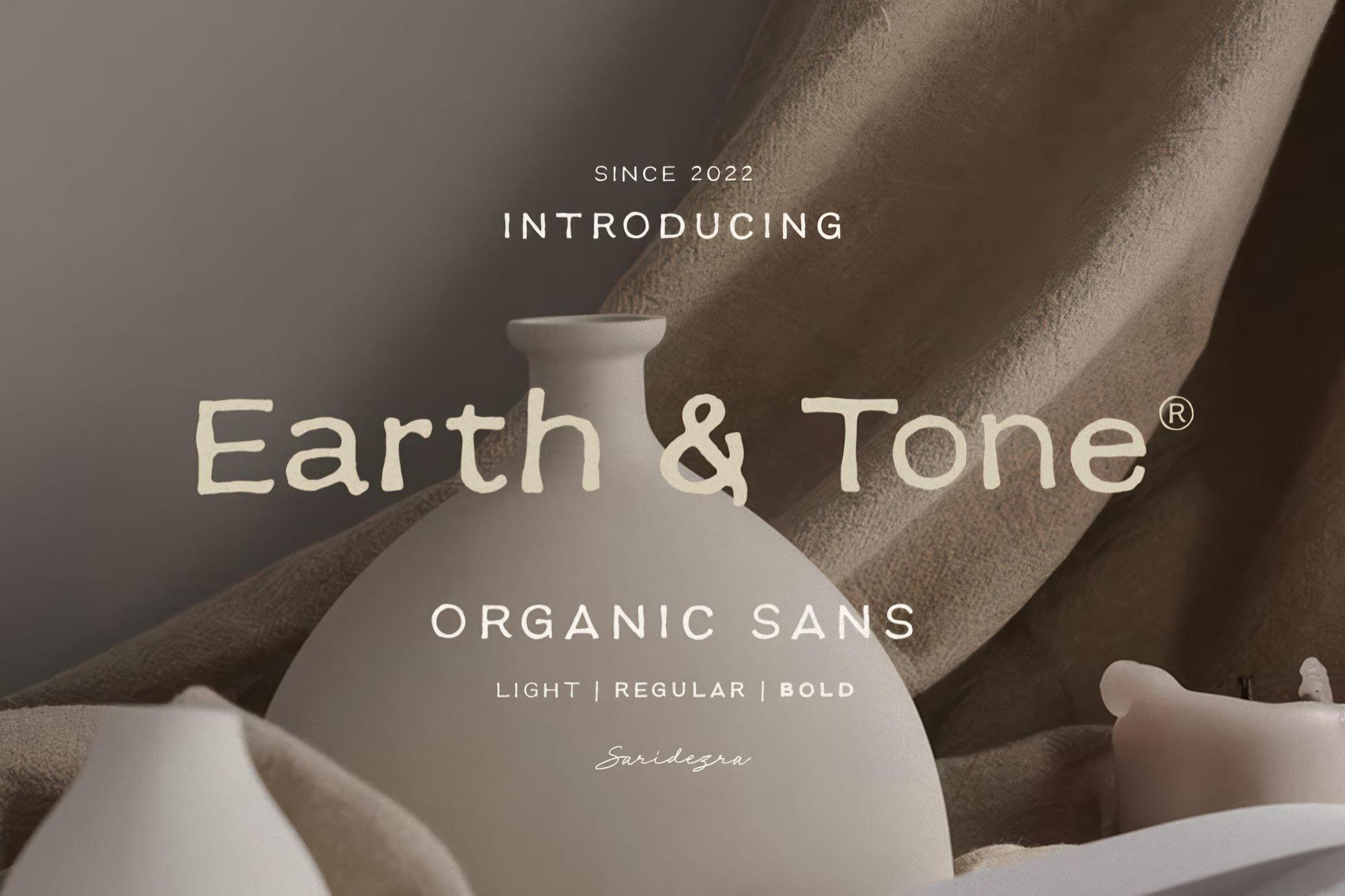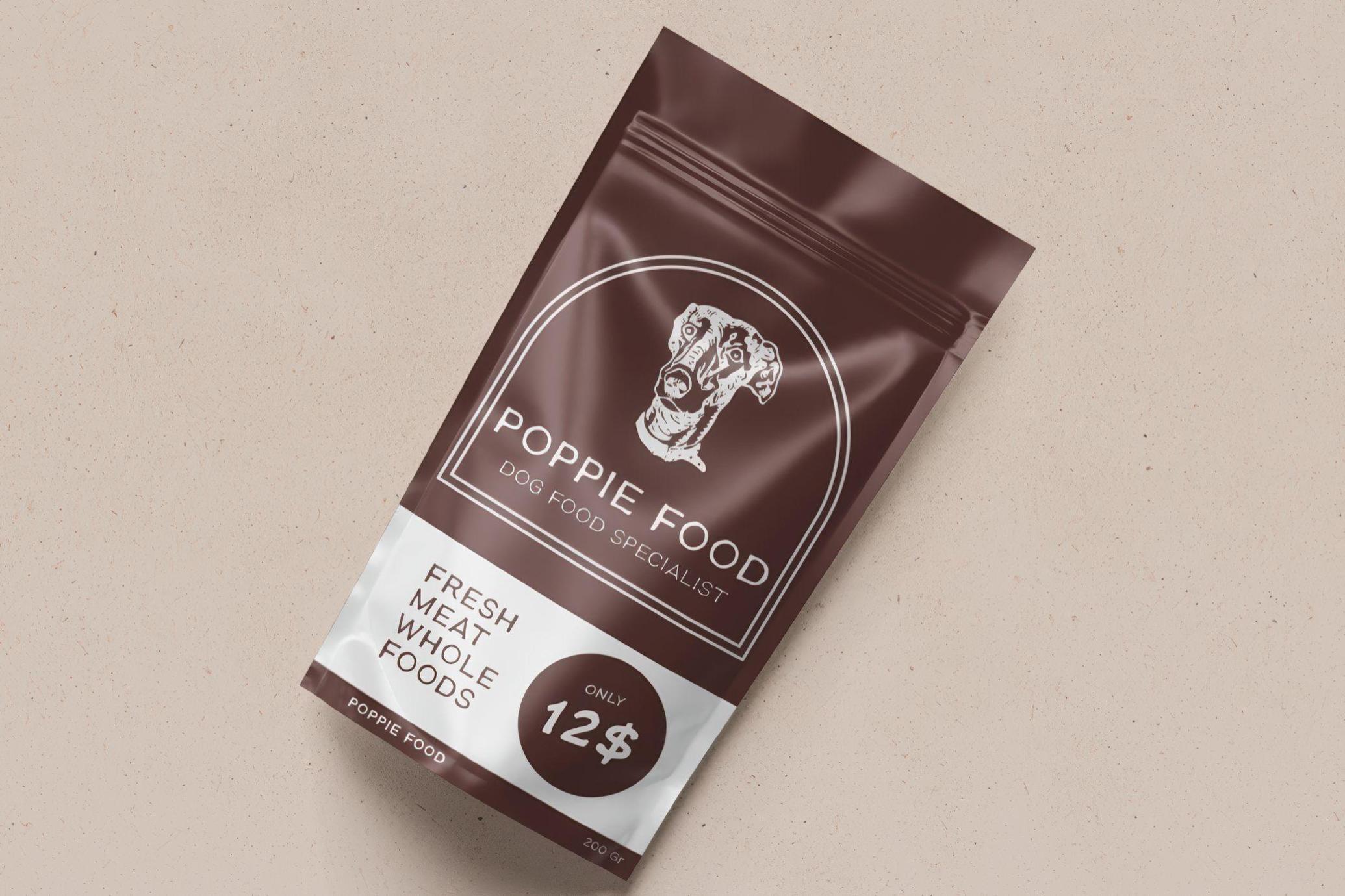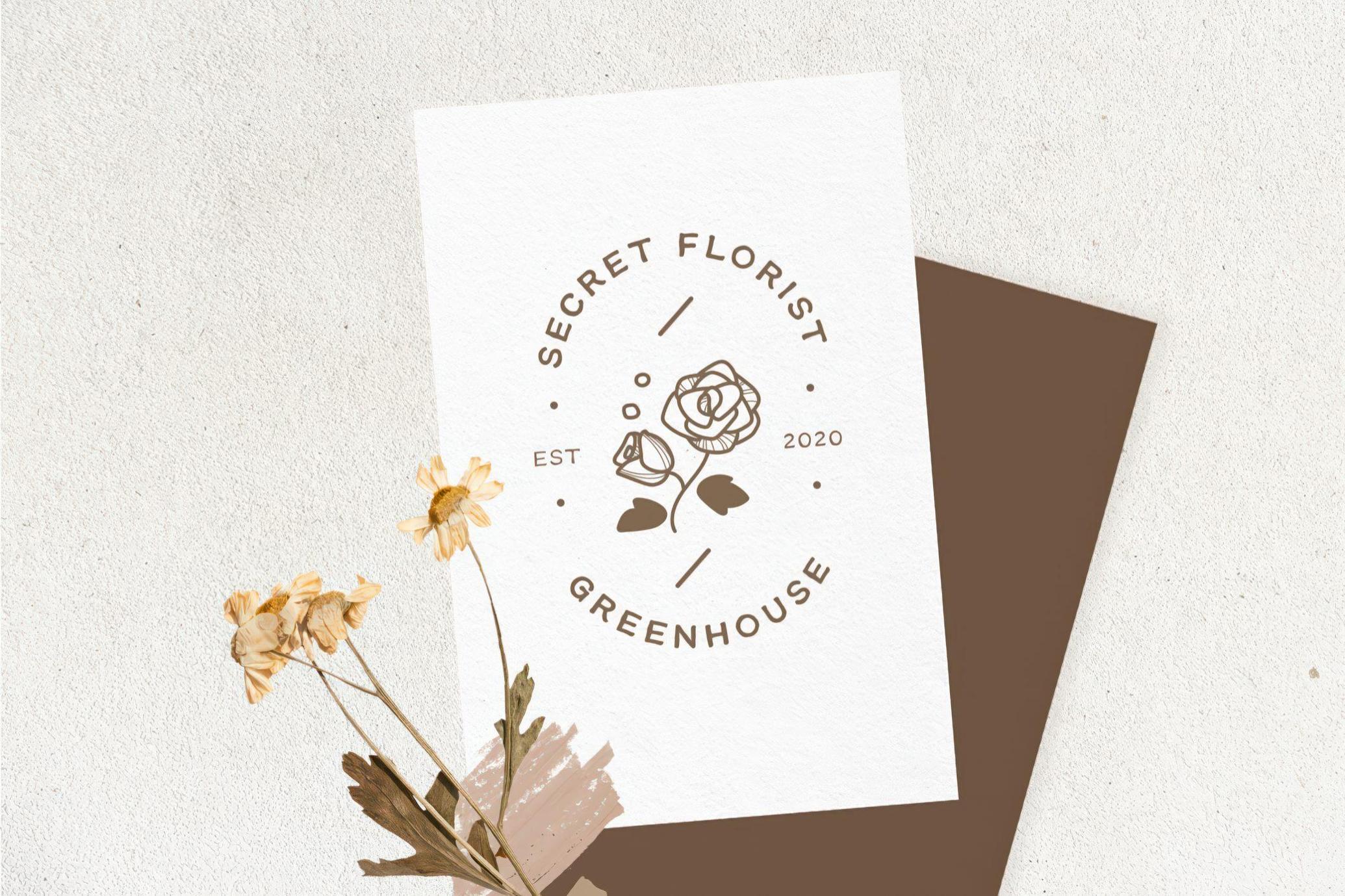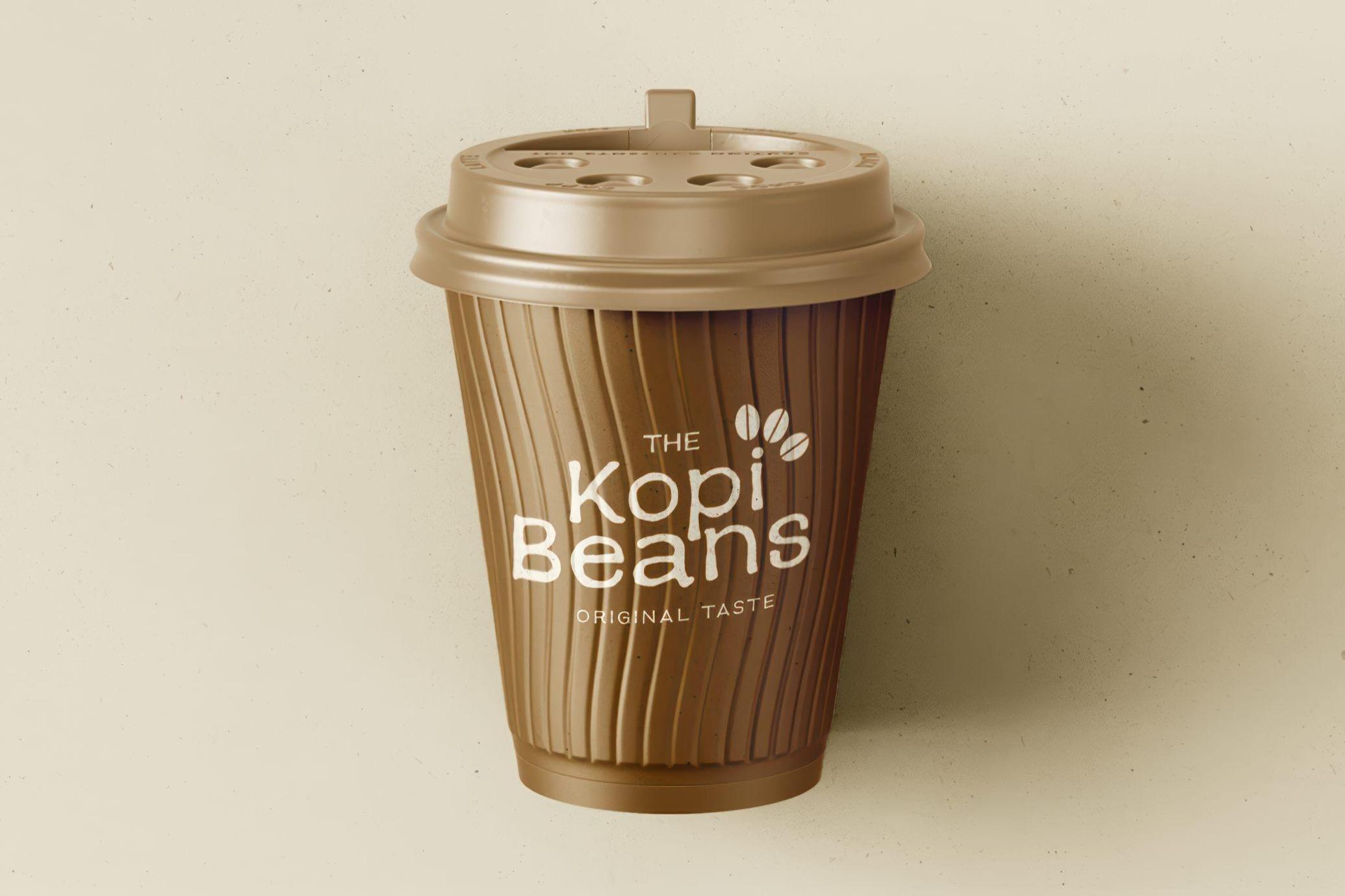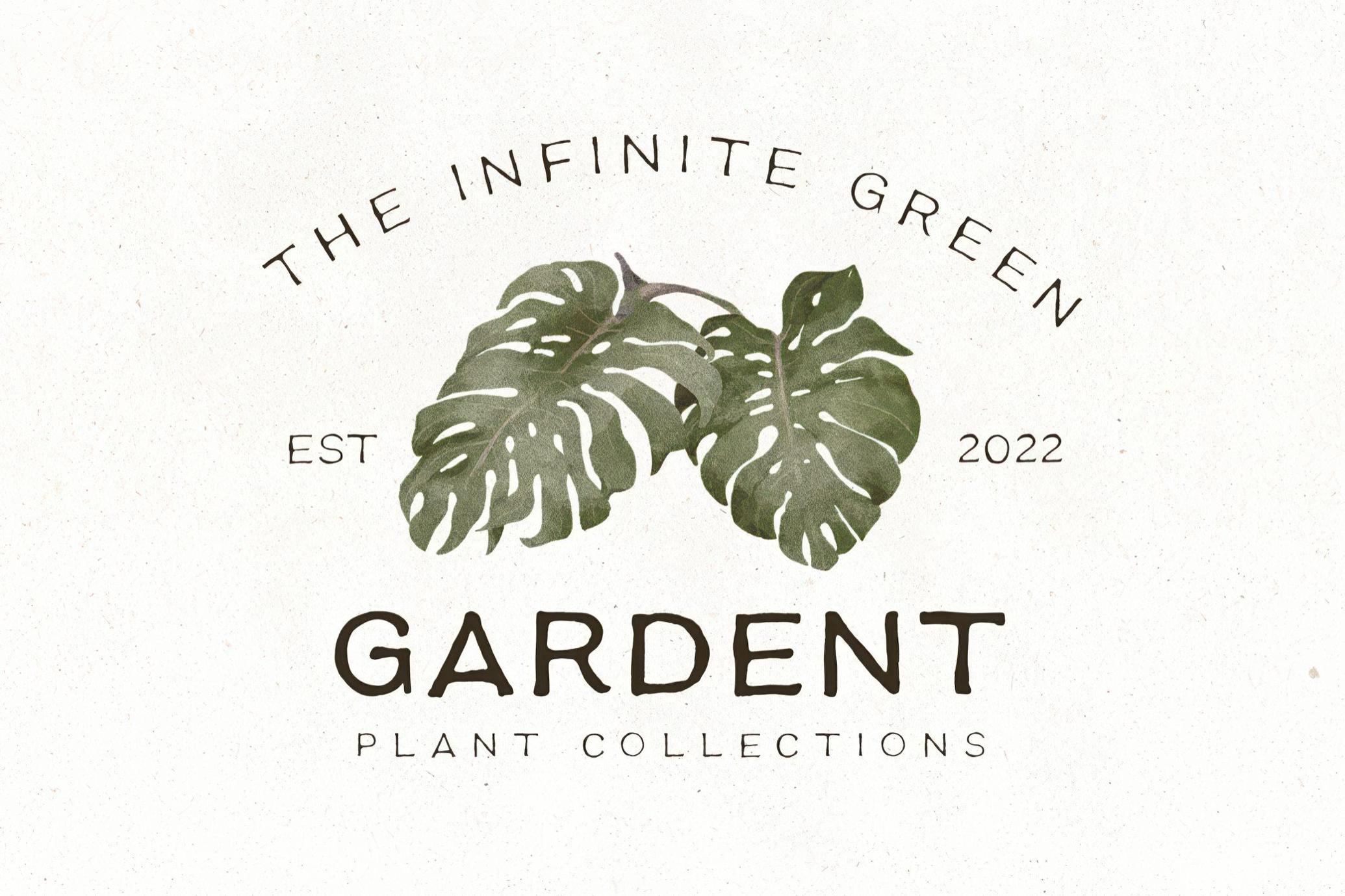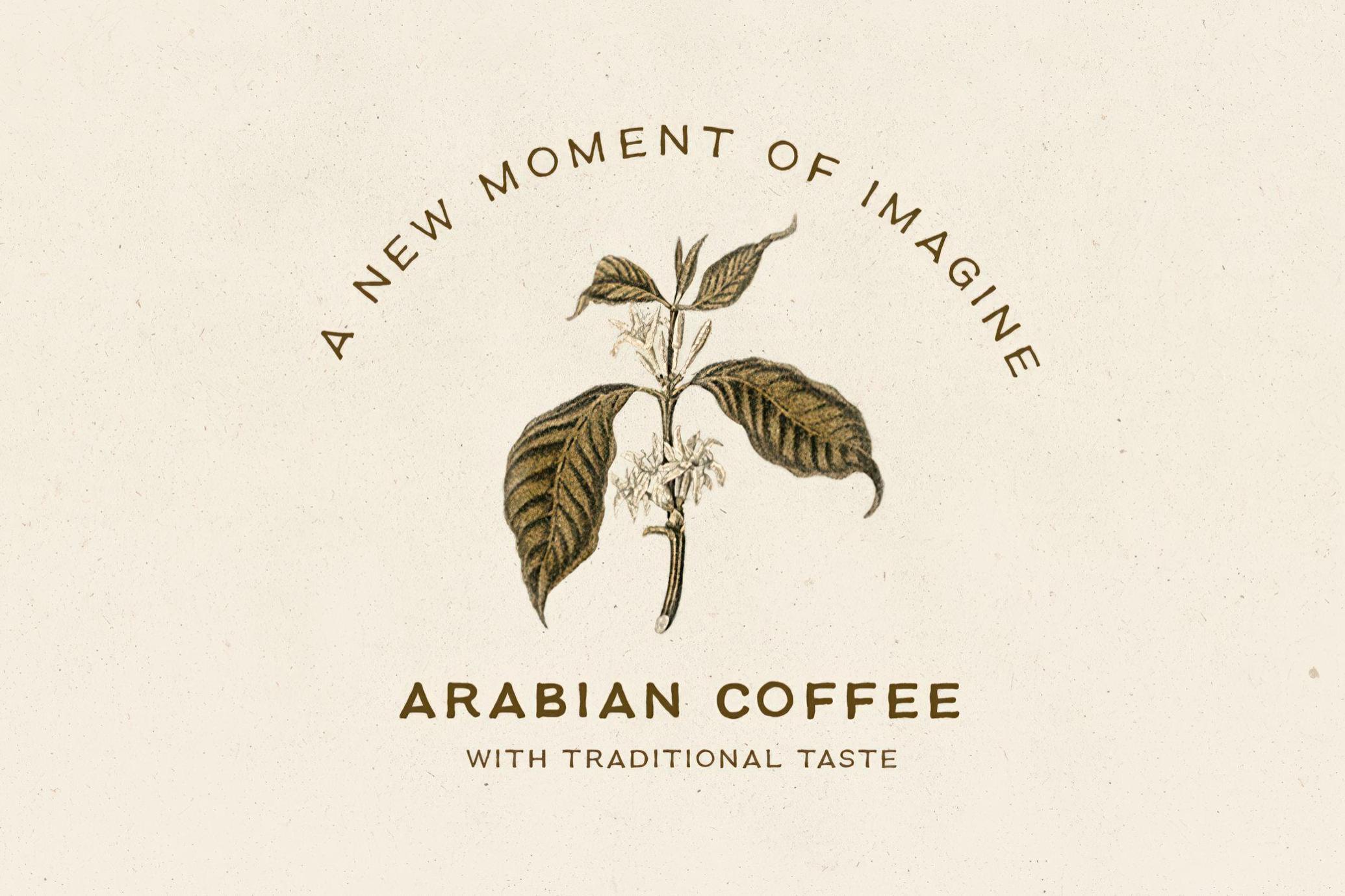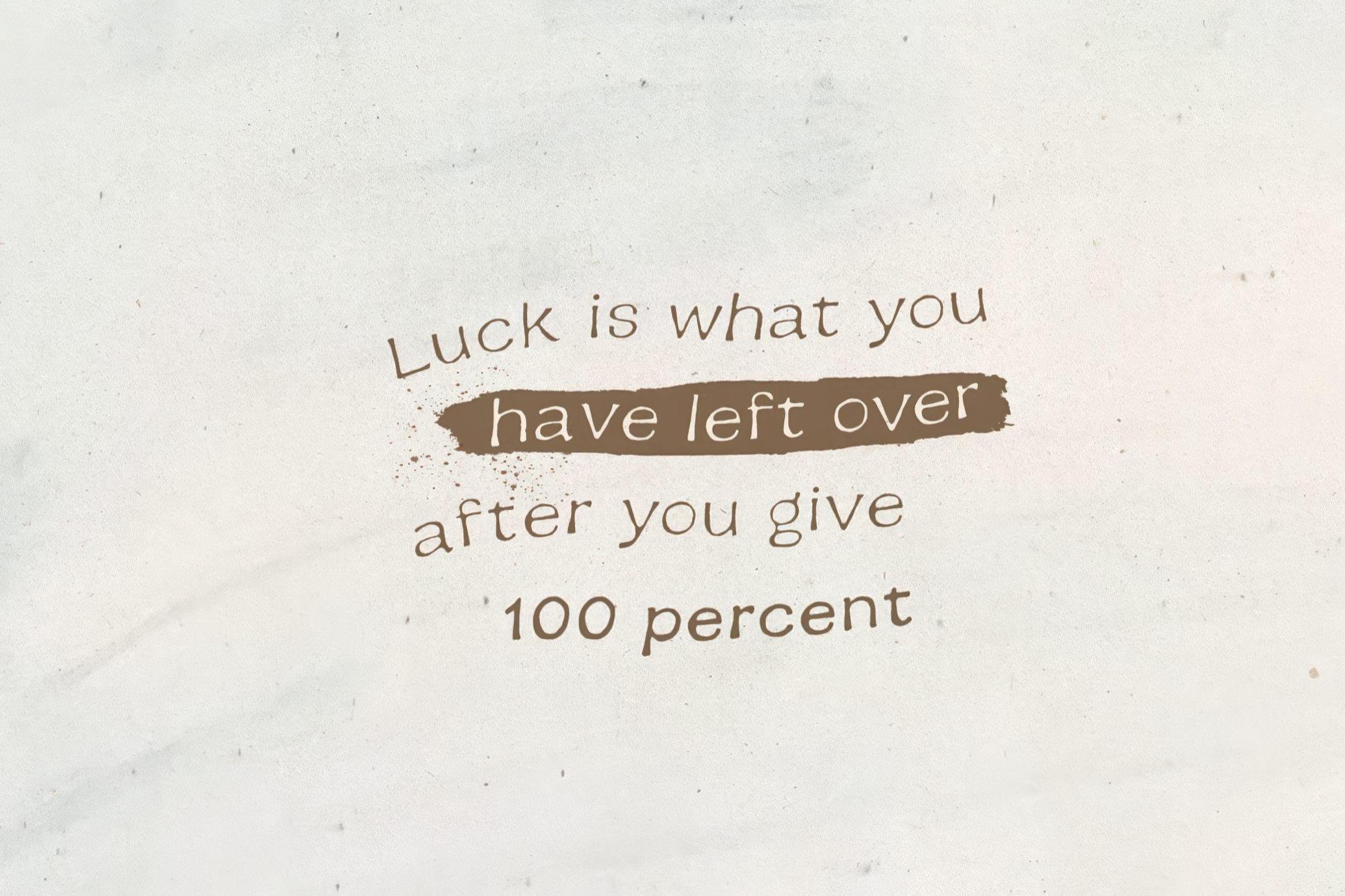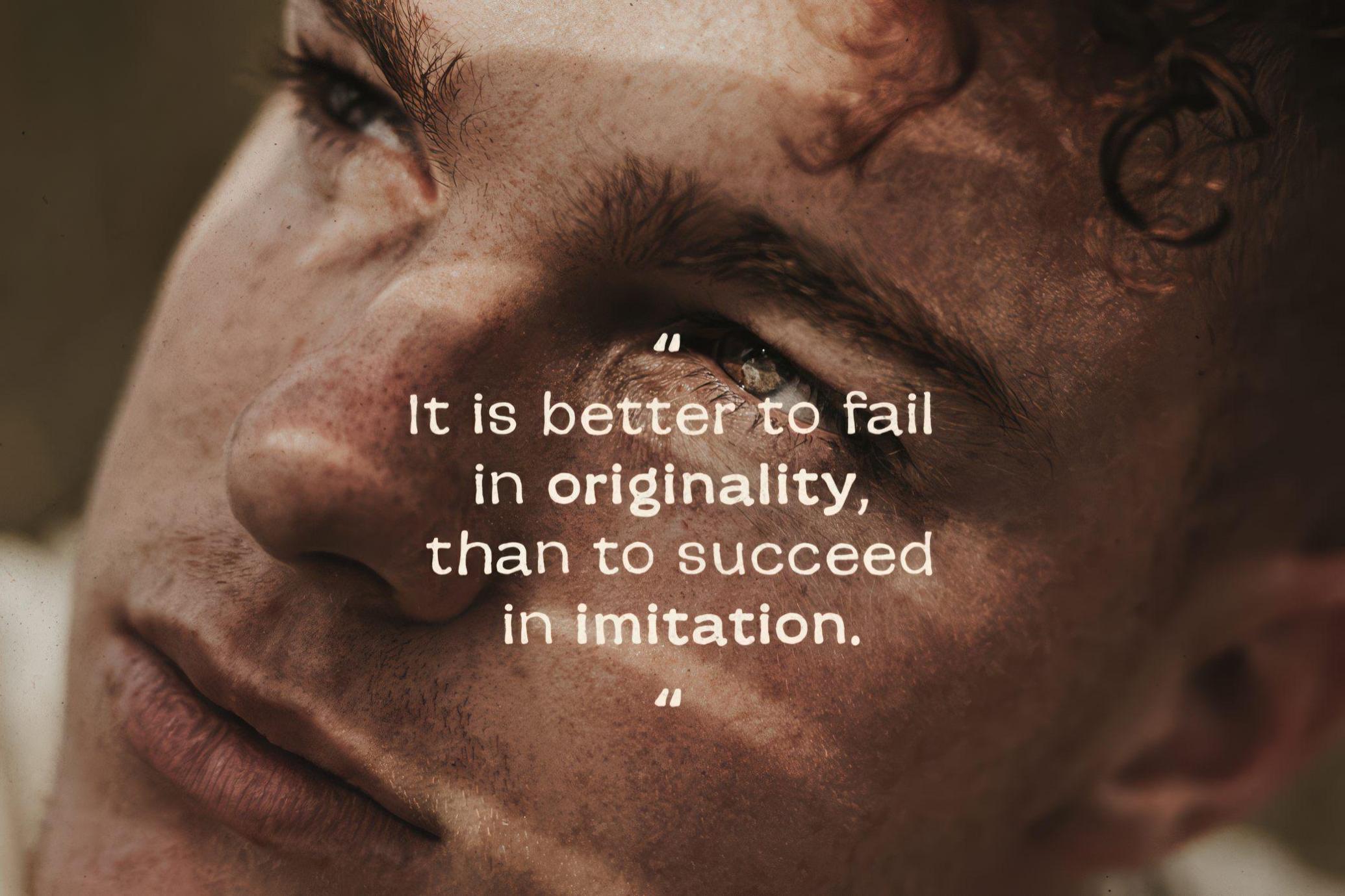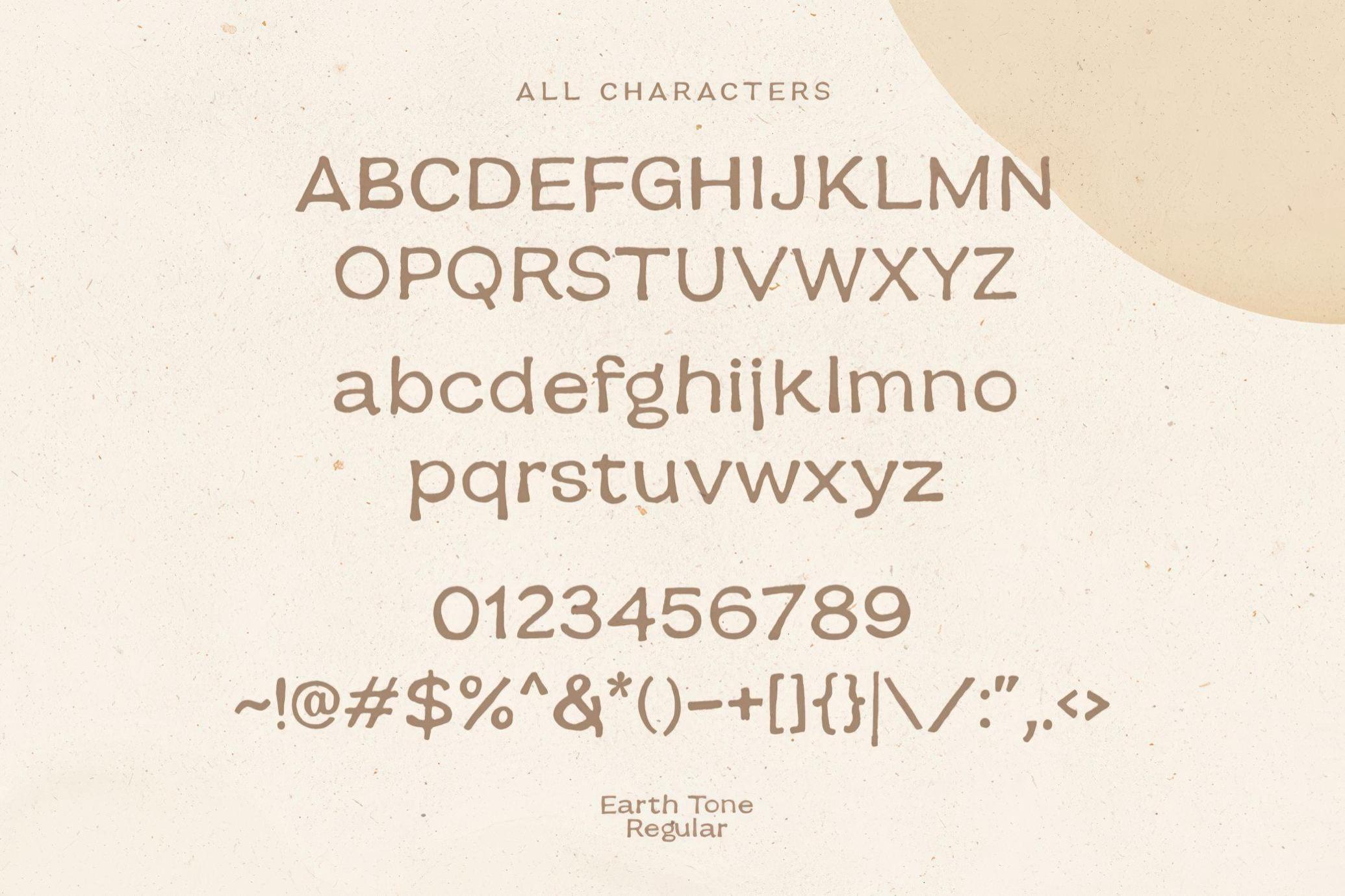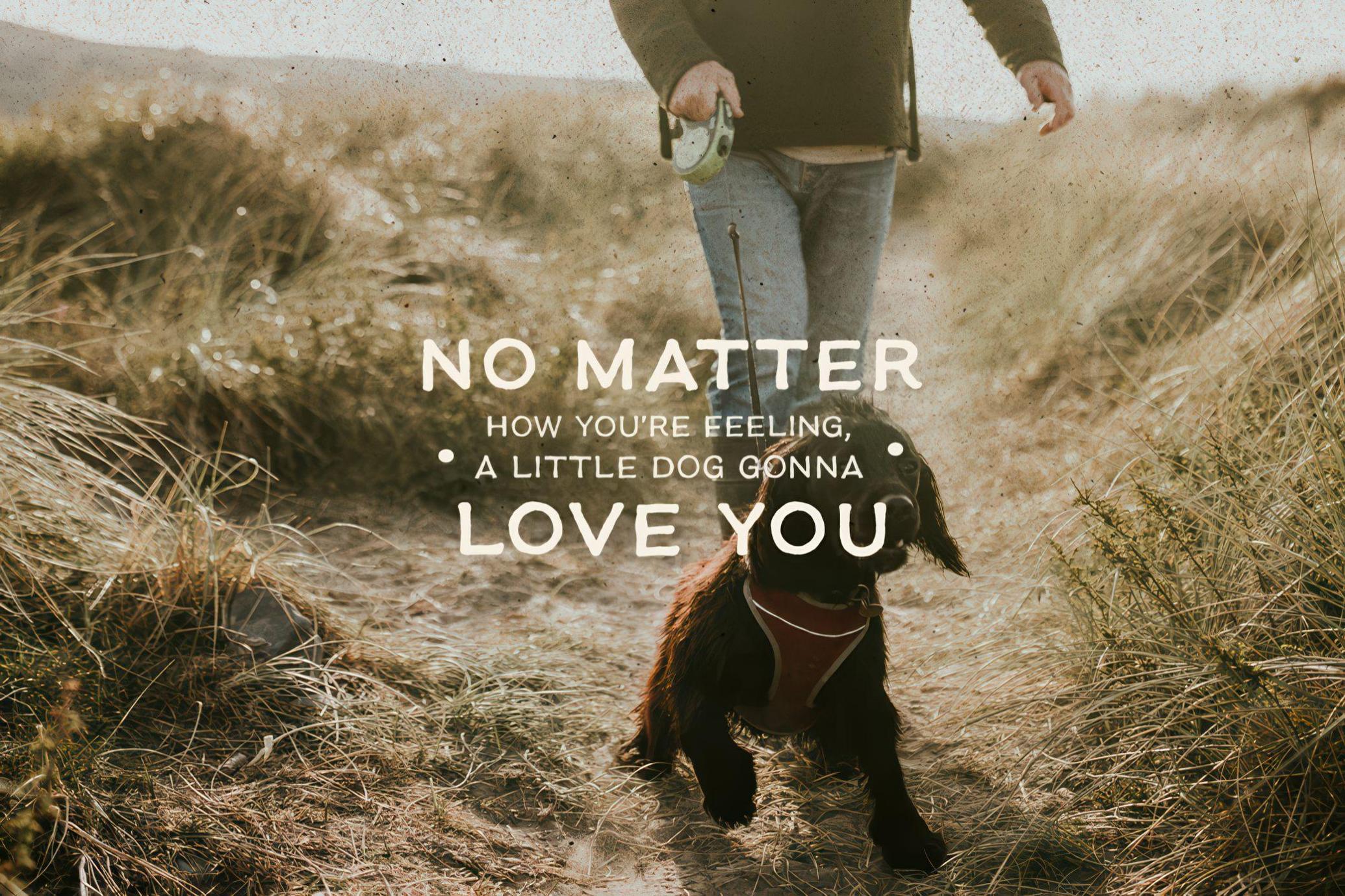
Earth Tone — Organic Sans Family
Another year of organic design is on the calendar! You sure have plenty of earthly textures and plant clipart, but what about fonts? It's time for Earth Tone to shine in your collection — it feels like carved in soft clay, turning into a model of natural aesthetics. This handmade font family contains three weights: Light, Regular, and Bold. There is a complete character set for each, featuring multilingual support, numbers, and symbols. While Earth Tone can tame almost any design, it is particularly suited for branding and packaging: think logos for artisanal shops, homeware, interior studios, jewelry, cruelty-free brands, and more.